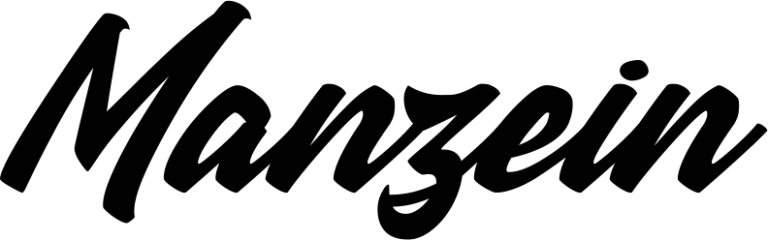
Bigfat Script Font
Bigfat Script is a retro-style groovy font, that is available in 2 versions. One of the styles is illegible! If you utilize this font you will be able to create a typography that is playful, happy, and funky. The characters for this particular font are bold, bubbly, and cheerful, plus it looks freaky.
The letterforms available for this vintage baseball font are mixed case alphabets, numbers, and punctuations. It will gain much more attention than you expect, especially in places like posters, magazines, stickers, games, and movies.